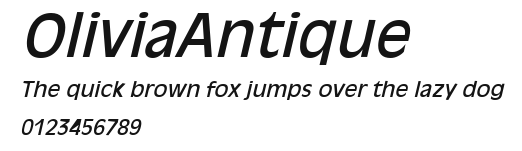
OliviaAntique Preview
About OliviaAntique.ttf
OliviaAntique.ttf is a modern, elegant sans-serif font designed for ultimate readability and visual harmony. Perfect for branding, headlines, web design, and print materials.